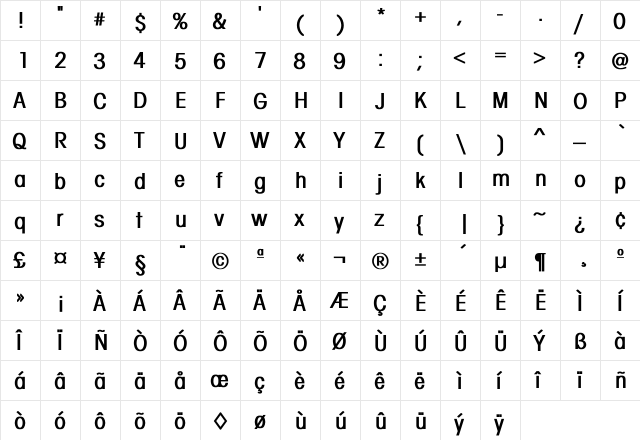
Aubade Condensed Bold
Design Context for Aubade Condensed Typeface
Aubade Condensed is a composed and adaptable typeface that performs quietly and consistently across a wide range of design contexts. The heavy weight commands attention and anchors typographic hierarchies. The condensed width makes it efficient for tight spaces without sacrificing legibility.